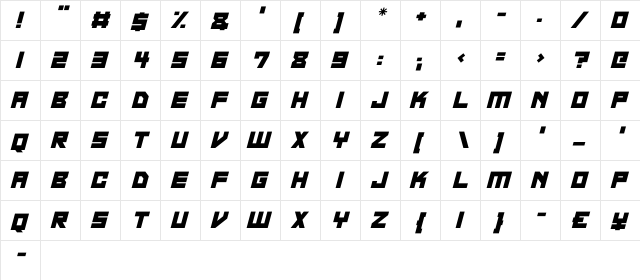
Neon Overdrive Italic
Design Context for Neon Overdrive Typeface
Neon Overdrive has a distinctly futuristic character, with geometric precision and clean angles that feel at home in technology, gaming, and sci-fi contexts. The dynamic lean of this cut emphasises speed and emphasis in any layout.